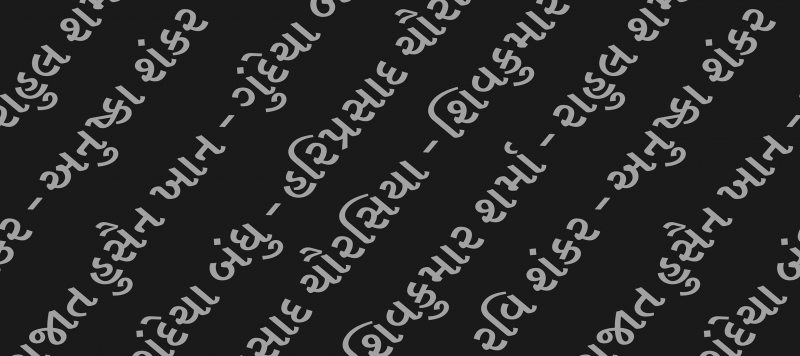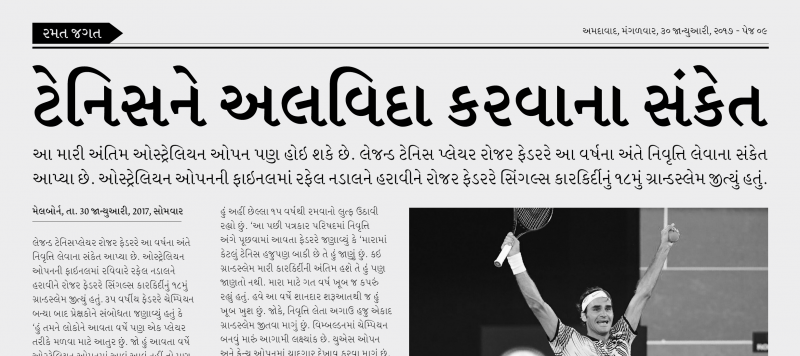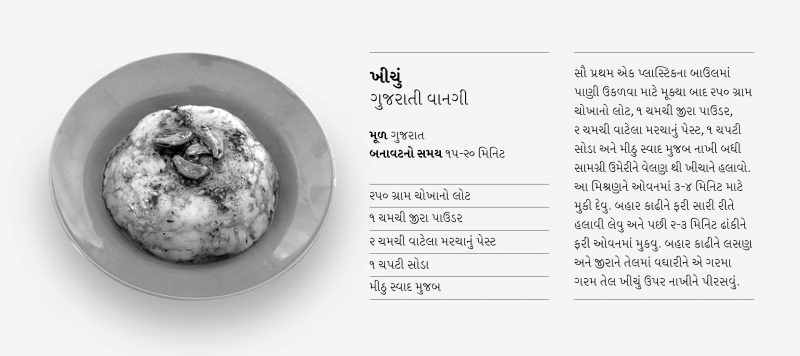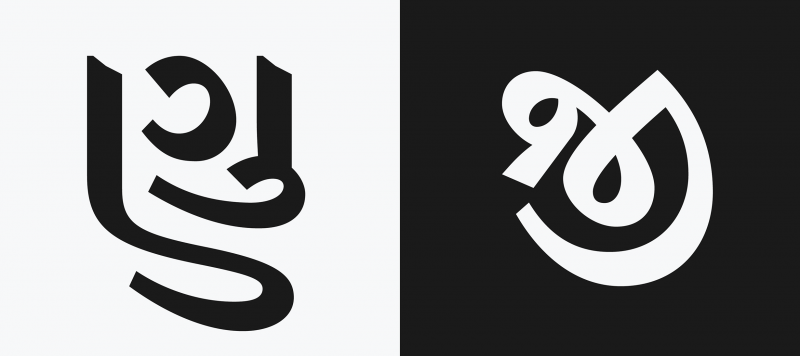
ITF Gujarati is a companion typeface for our popular ITF Devanagari family. Both are workhorse designs, inspired by calligraphic tradition. They’re ideal typefaces for books, magazines, and newspapers. As ITF Gujarati’s weights get heavier, their levels of stroke-contrast increase significantly, too. While the degree is toned down in the lighter weights, so the thin strokes remain robust enough, even ITF Gujarati Light features unmistakable diagonal contrast. While all of the family’s weights have been optimised to maximise their legibility in small sizes, the Regular and the Medium are the most suited members for body text. The other weights are most useful in headlines. The fonts’ character sets include over four dozen alternate-length i-matras in them, which help ensure proper text-shaping for all Gujarati consonantal clusters, making text set in ITF Gujarati look just great. While the ITF Gujarati fonts don’t contain any alphabetic characters from the Latin script, they do include ‘western’ numerals and punctuation marks.
| Family Name | ITF Gujarati |
| Designer(s) | Parimal Parmar |
| Classification | Serif |